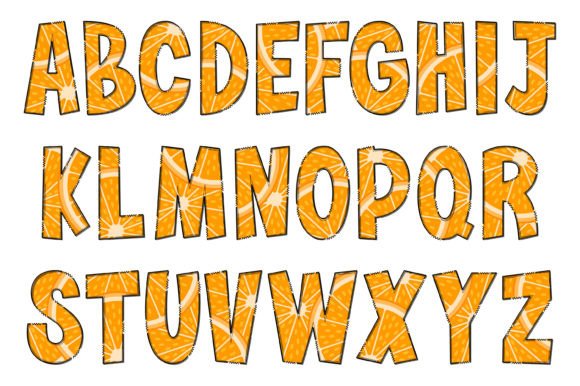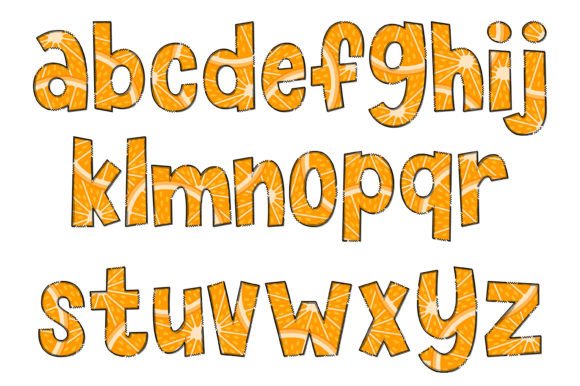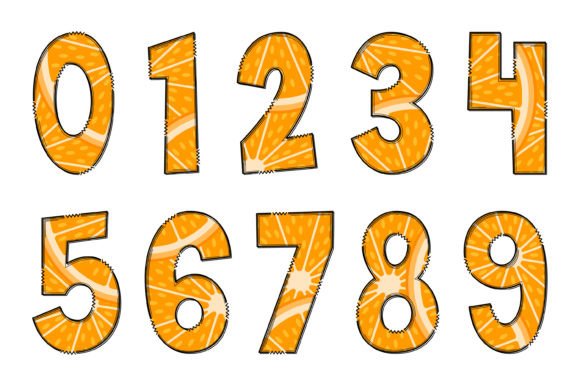
Introducing Fresh Orange Font: The Perfect Addition to Your Design Arsenal
Are you a designer or crafter looking for a font that can add a playful and artistic touch to your projects? Look no further than Fresh Orange Font! This vibrant and energetic font is perfect for a variety of design applications, from children’s books and posters to invitations and greeting cards.
The Characteristics of Fresh Orange Font
Fresh Orange Font is a unique and eye-catching typeface that is sure to make your designs stand out. Its playful and whimsical feel makes it an ideal choice for projects that require a bit of personality and flair. The font’s bright orange color is sure to grab attention and evoke a sense of fun and creativity.
Use Cases for Fresh Orange Font
So, where can you use Fresh Orange Font? The possibilities are endless! Here are a few ideas to get you started:
- Children’s Books: Fresh Orange Font is a perfect fit for children’s books, with its whimsical and colorful feel. It’s sure to engage young readers and bring your story to life.
- Posters: Add a pop of color and energy to your posters with Fresh Orange Font. It’s perfect for promoting events, products, or services in a fun and playful way.
- Invitations: Make your invitations stand out with Fresh Orange Font. It’s ideal for birthday parties, baby showers, and other celebrations.
- Greeting Cards: Add a personal touch to your greeting cards with Fresh Orange Font. It’s perfect for birthdays, holidays, and other special occasions.
Why Choose Fresh Orange Font?
So, why should you choose Fresh Orange Font for your design projects? Here are just a few reasons:
- Unique and Eye-Catching: Fresh Orange Font is a one-of-a-kind typeface that is sure to make your designs stand out.
- Playful and Artistic: The font’s playful and artistic feel makes it perfect for projects that require a bit of personality and flair.
- Easy to Read: Despite its playful feel, Fresh Orange Font is easy to read, making it perfect for body text and other applications where legibility is important.
- Versatile: Fresh Orange Font can be used in a wide range of design applications, from children’s books to posters and invitations.
In conclusion, Fresh Orange Font is a unique and versatile typeface that is perfect for designers and crafters looking to add a playful and artistic touch to their projects. With its bright orange color and whimsical feel, it’s sure to make your designs stand out. So why wait? Download Fresh Orange Font today and start creating your own unique and eye-catching designs!